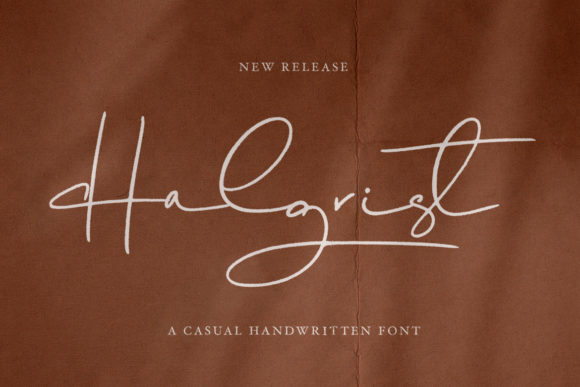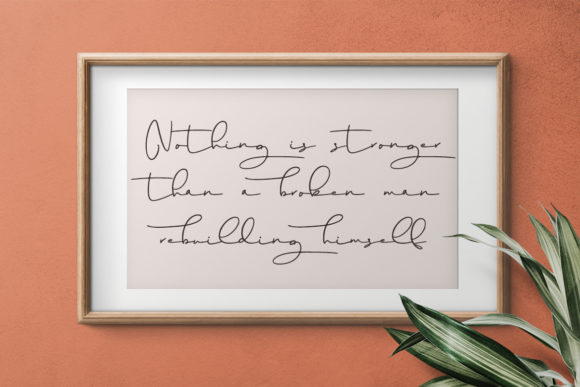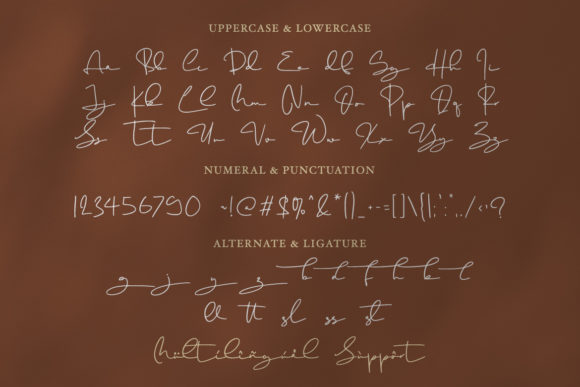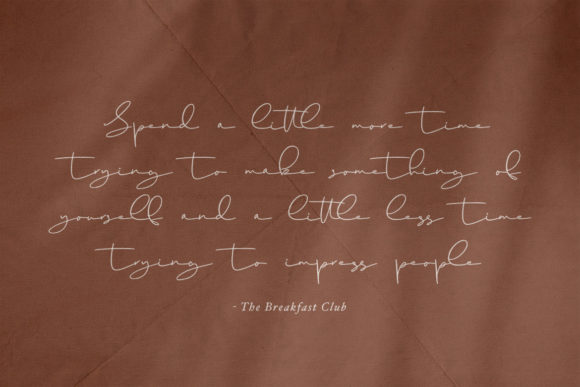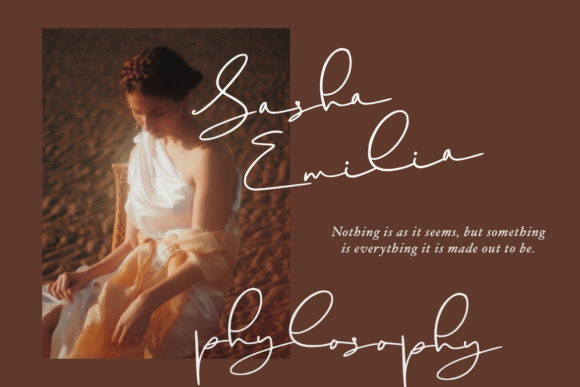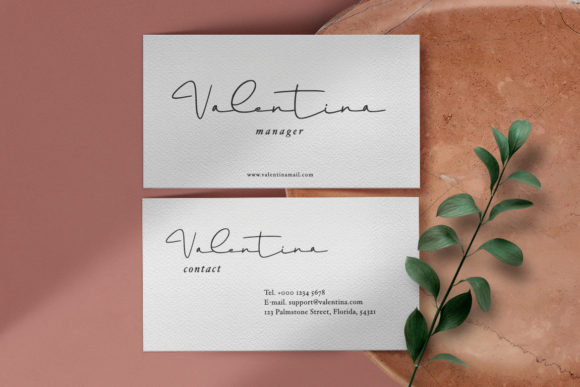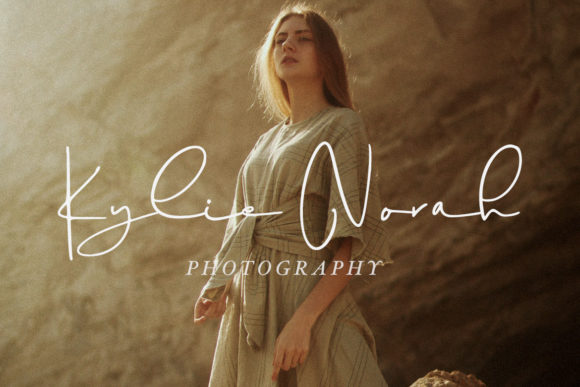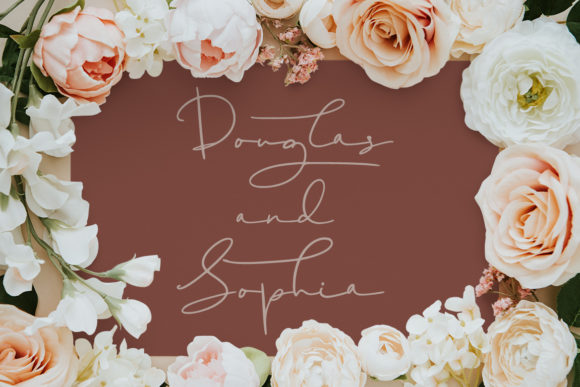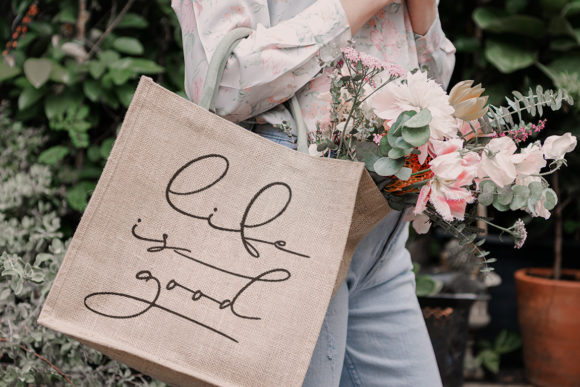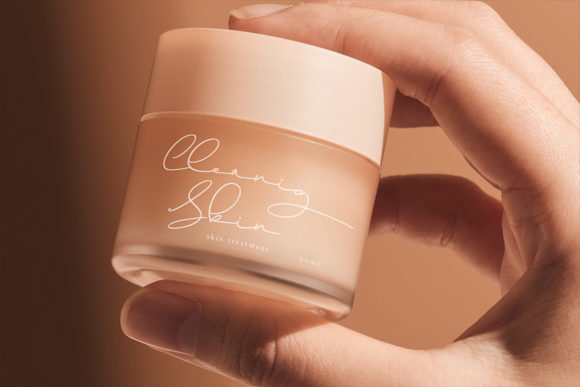
Halgrist Font
About Halgrist Font
Halgrist is a thin and elegant handwritten font. This font is perfect for many different projects such as logos & branding, invitation, stationery, wedding designs, social media posts, advertisements, product packaging, product designs, label, photography, watermark, special events and much more!